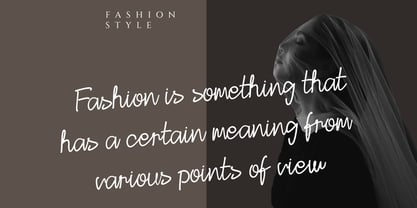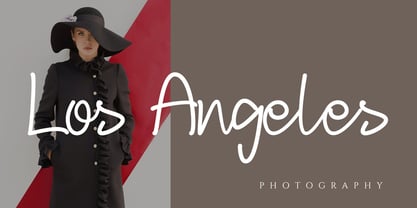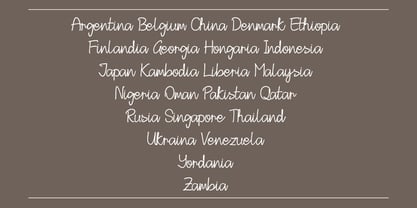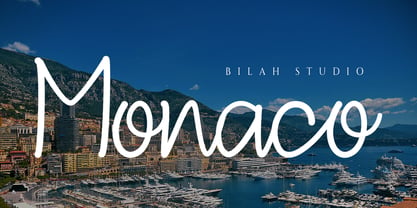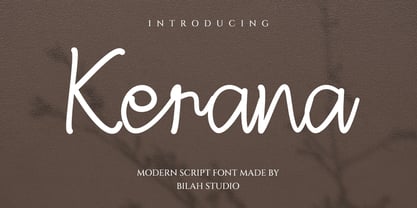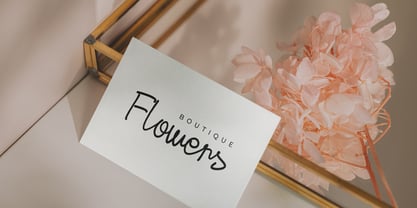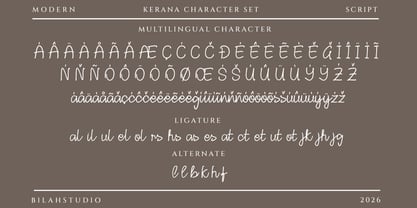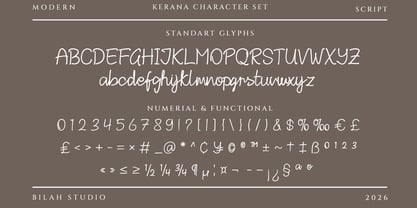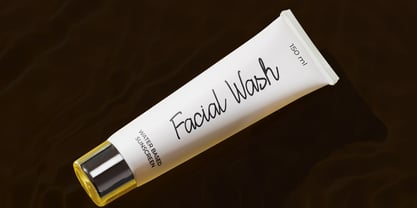
Kerana
by Bilahstudio
The Kerana Font Family was designed by Ismunandar Rambe and published by Bilahstudio. Kerana contains 1 styles. More about this family
Kerana Handwritten is a simple and professional-looking script font with a modern feel and elegant accents, perfect for creating stunning punctuation and stylish text in general. It's attractive, girly, and elegant, and features a swashes at the beginning and end to enhance your designs. Kerana Handwritten is a great choice for watermarks, signatures, logos, album covers, magazines, business cards, and many other design projects.
Designers: Ismunandar Rambe